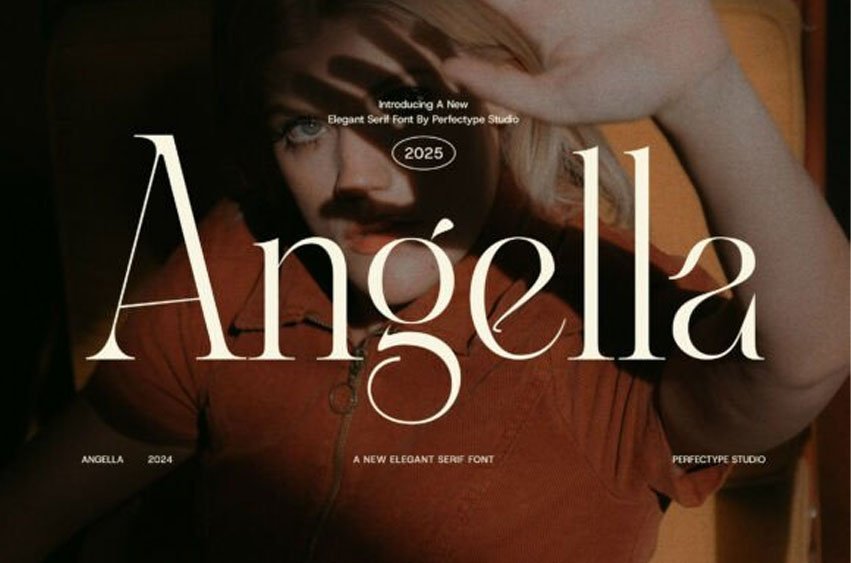
Angella Serif Font is a graceful and stylish serif typeface designed to bring sophistication to any creative project. With a harmonious balance of modern style and timeless beauty, Angella offers clean lines, proportional spacing, and refined details that enhance visual appeal across all branding materials.
Whether you are working on a chic logo, a high-end website, or a luxury product label, Angella provides the elegance and functionality you need. Its smooth ligatures and subtle curves add a gentle flow to your typography, making it ideal for both display and paragraph text. This font works beautifully in fashion magazines, boutique packaging, social media graphics, and editorial layouts, adding a polished, premium feel to every design.